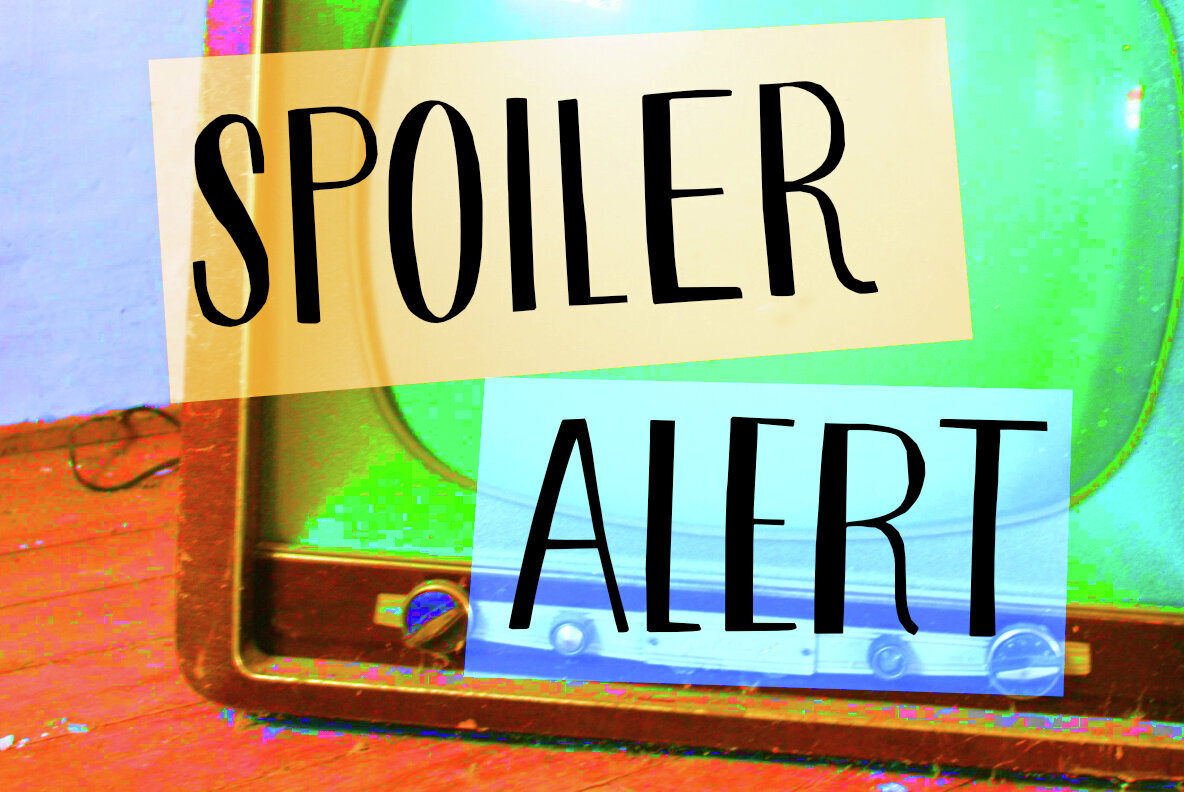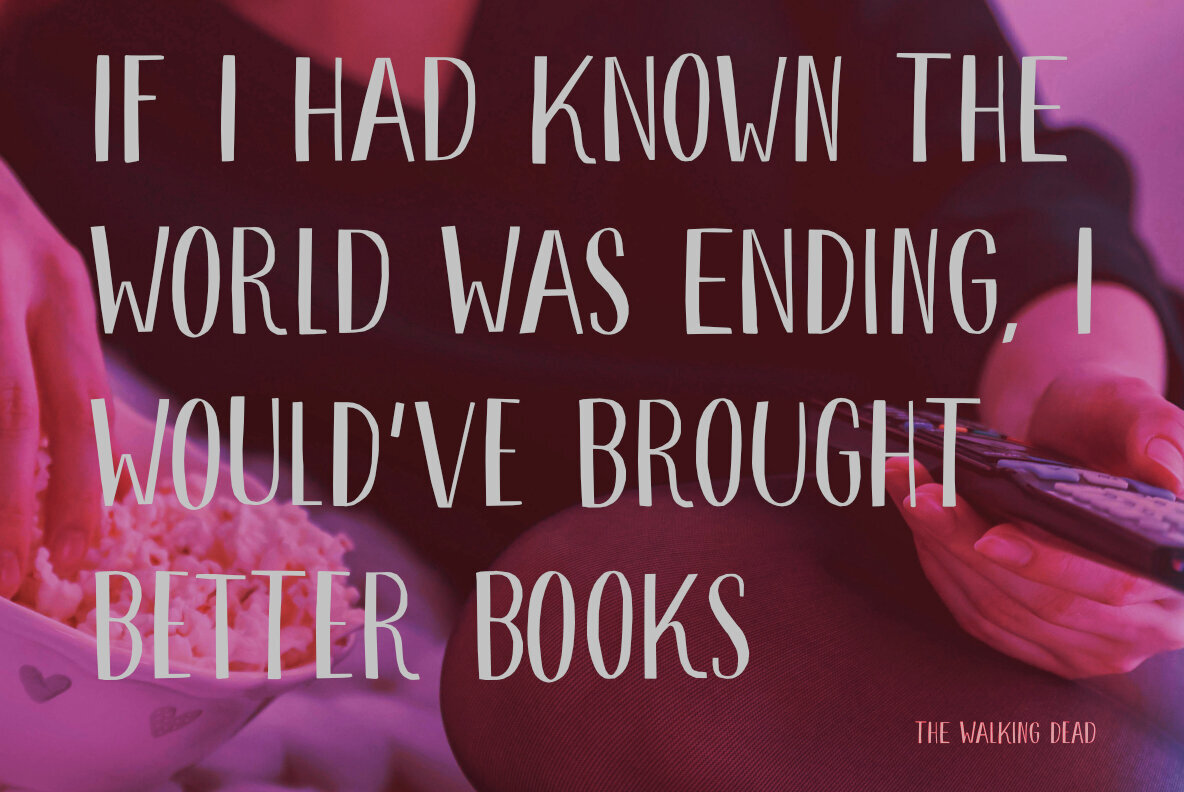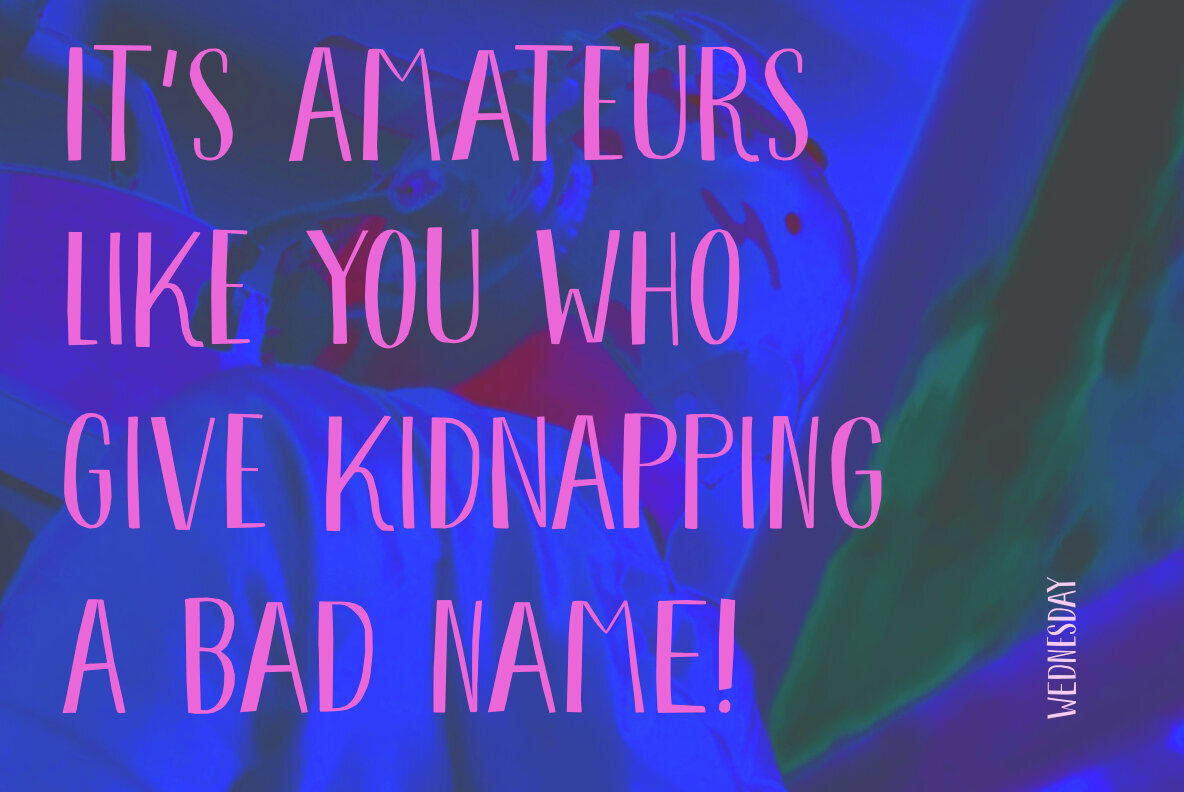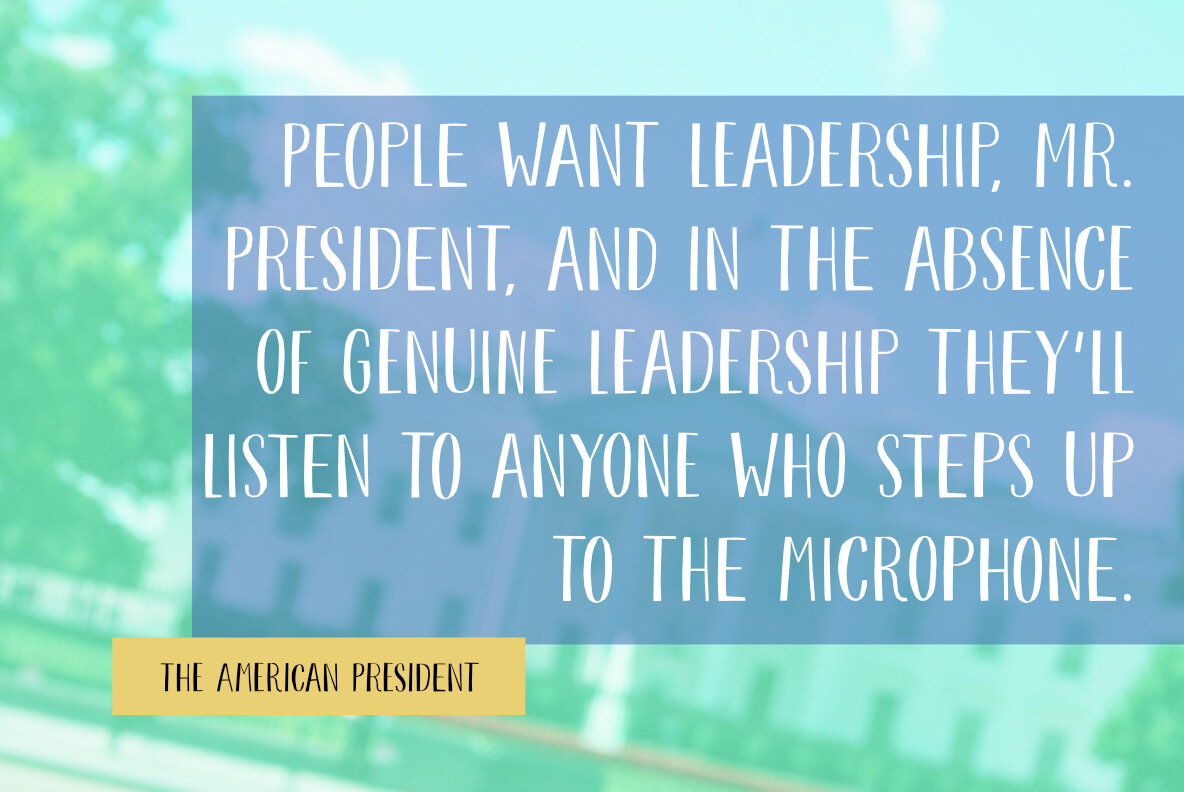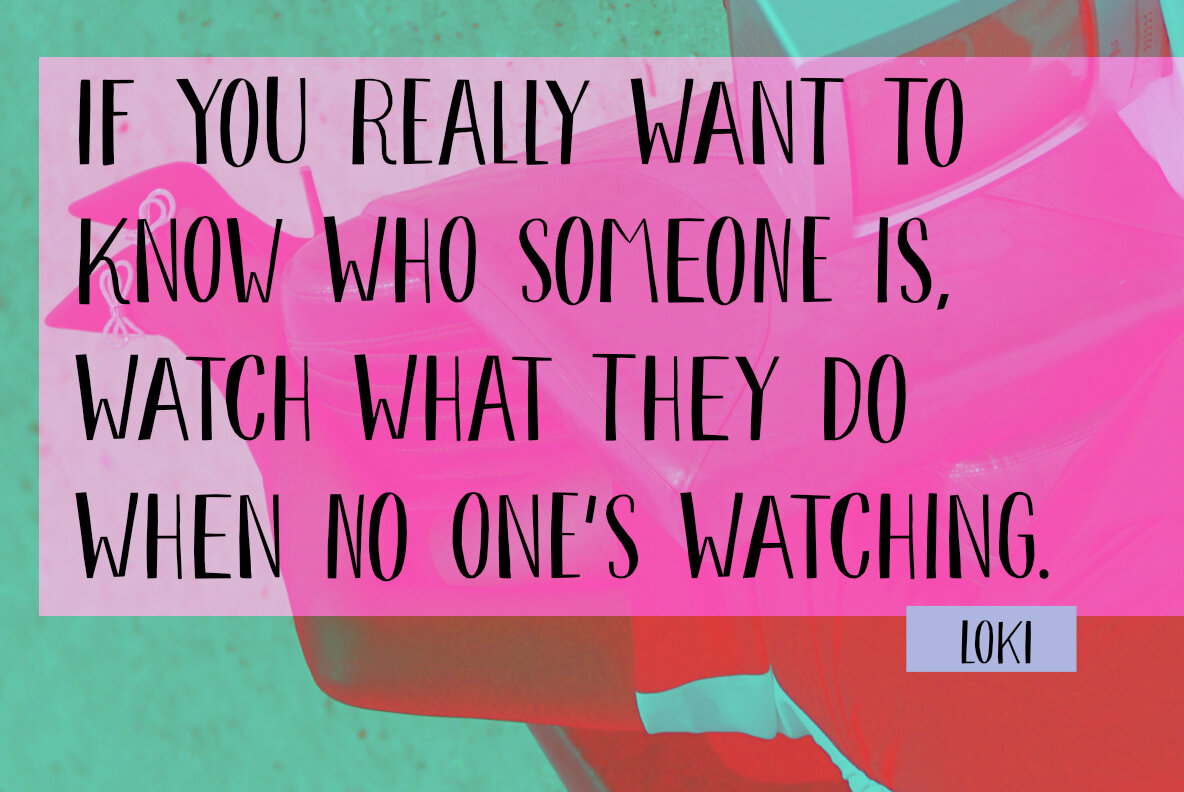
Spoiler Alert Font
Spoiler Alert Regular
Spoiler Alert Italic
Step into the world of Spoiler Alert, a delightful handmade font that brings a personal touch to your creative projects. Designed with meticulous care, this typeface features a unique collection of auto-rotating alternates for the lowercase glyphs, ensuring your text never looks repetitive. Dive into an expanded world of linguistic possibilities with an extensive range of diacritics, perfect for diverse languages and creative endeavors.Spoiler Alert Typeface